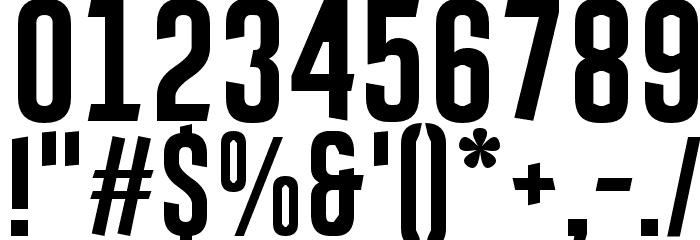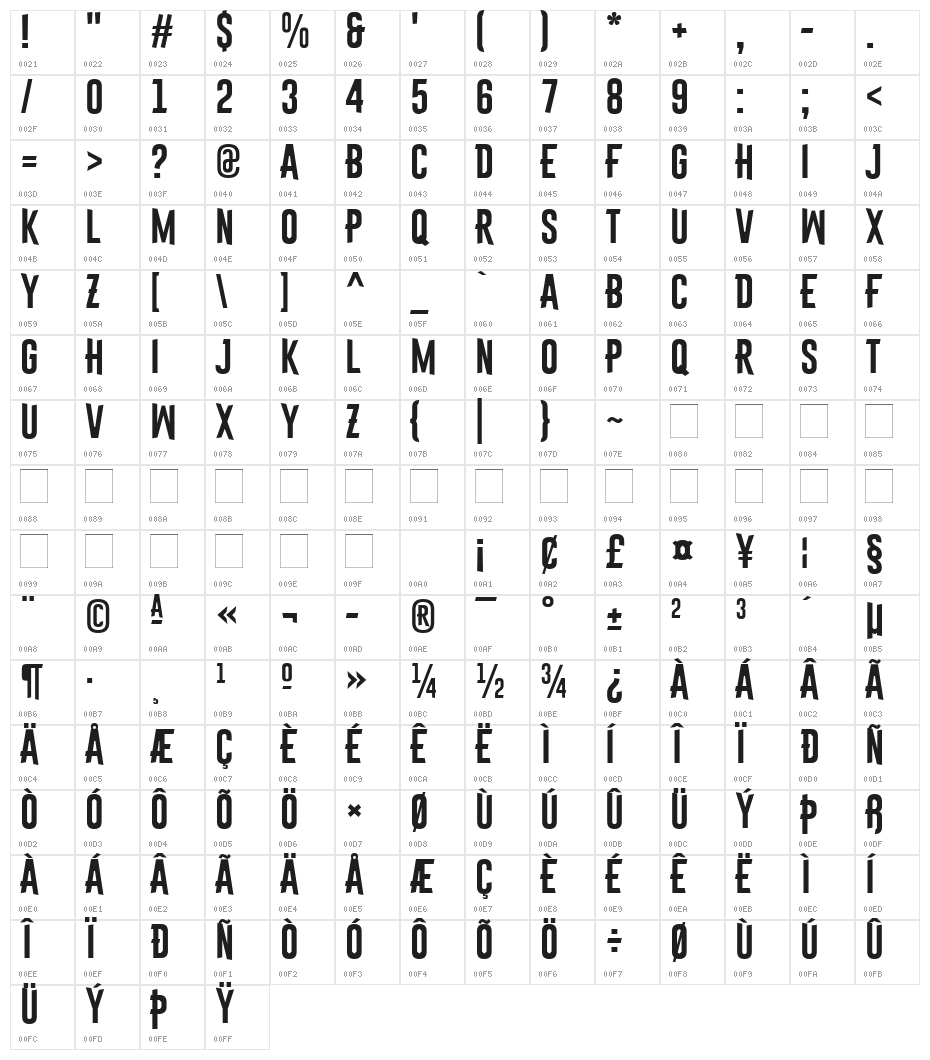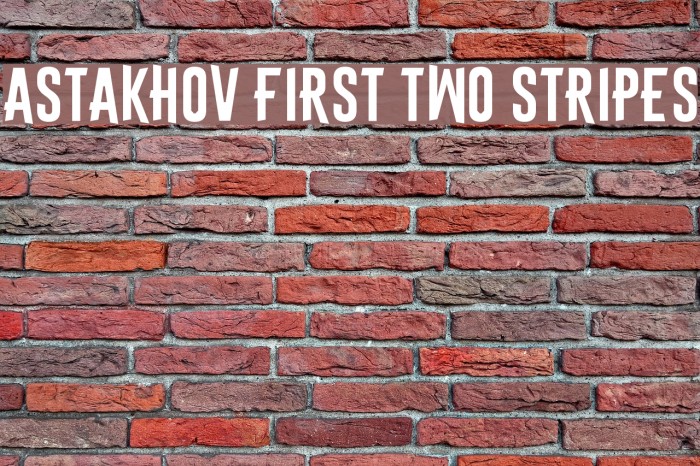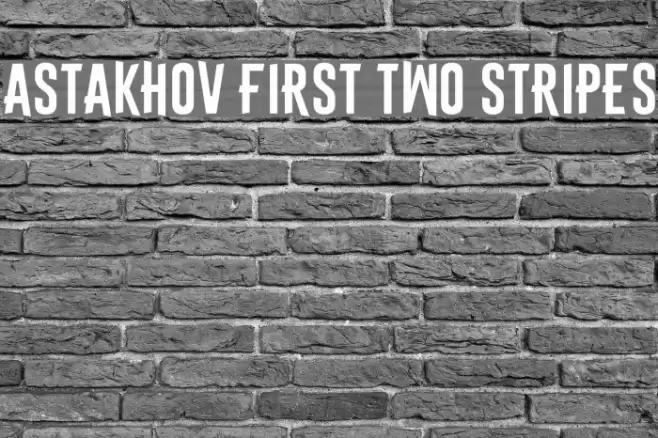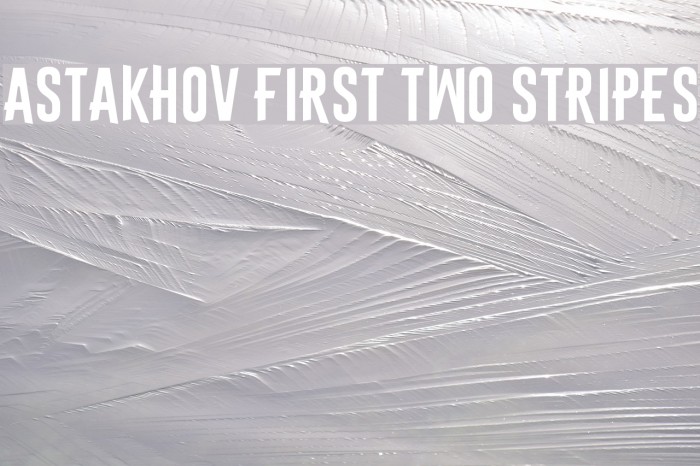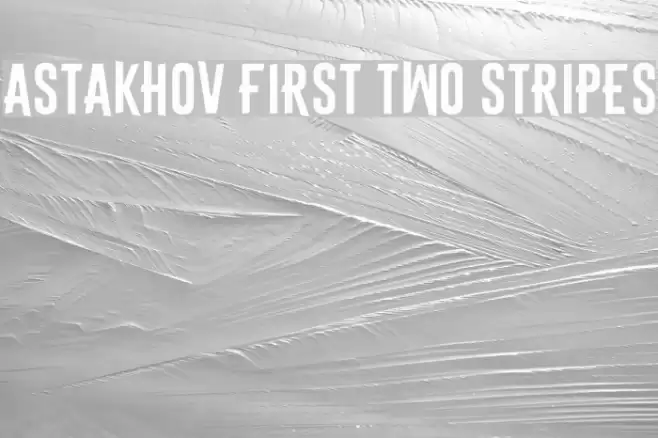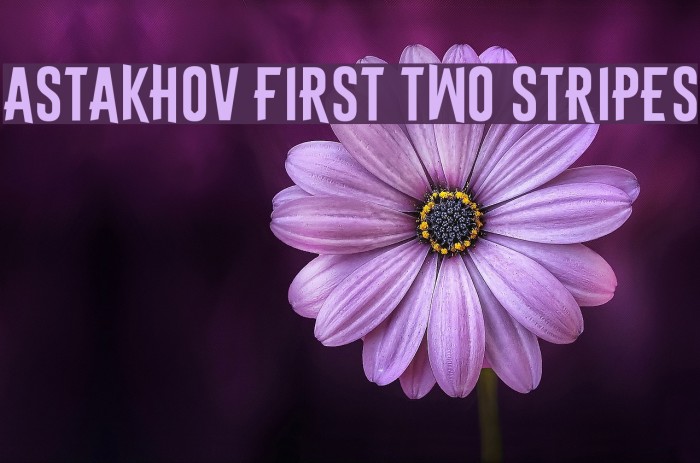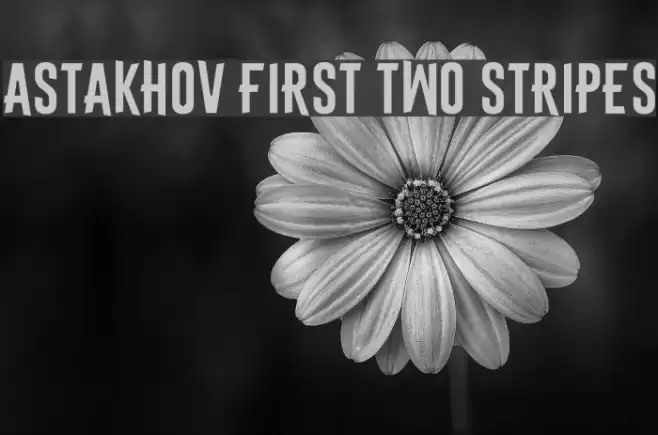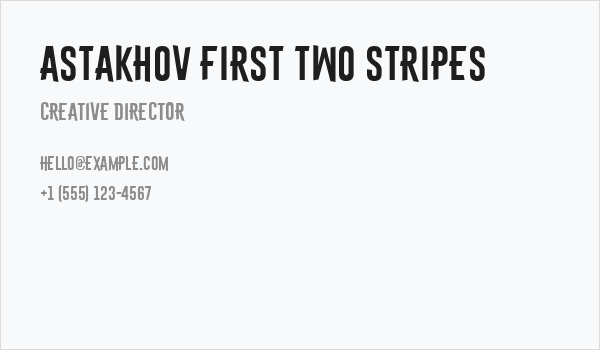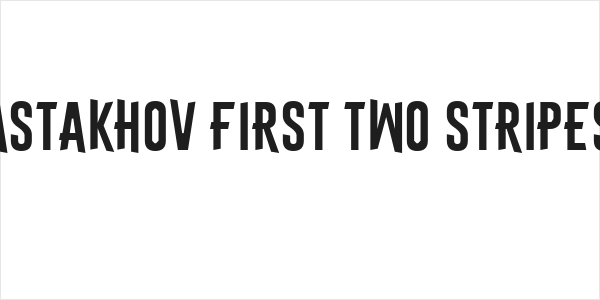
Astakhov First Two Stripes Font
Astakhov First Two Stripes Description
This font features a bold and impactful design with strong geometric shapes and a condensed structure. The uppercase letters are uniform in height, creating a cohesive and powerful visual presence. The strokes are thick and consistent, providing a sense of stability and strength. The numbers and special characters maintain the same boldness, ensuring uniformity across all elements. The overall style is modern and assertive, making it suitable for attention-grabbing headlines and branding projects.